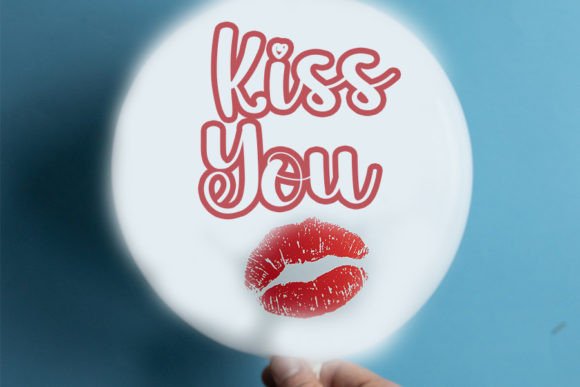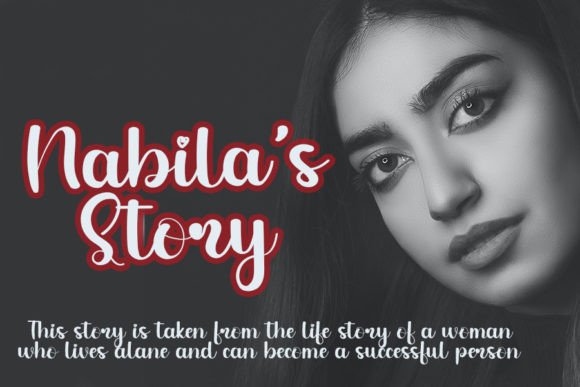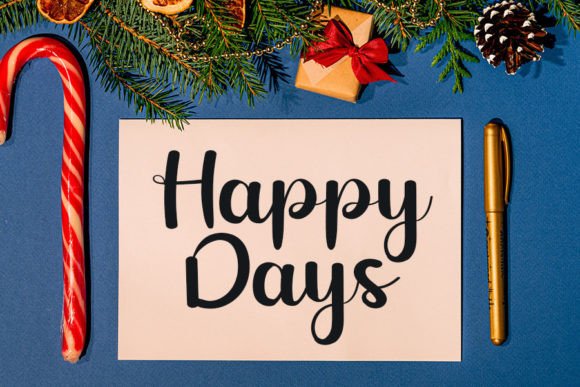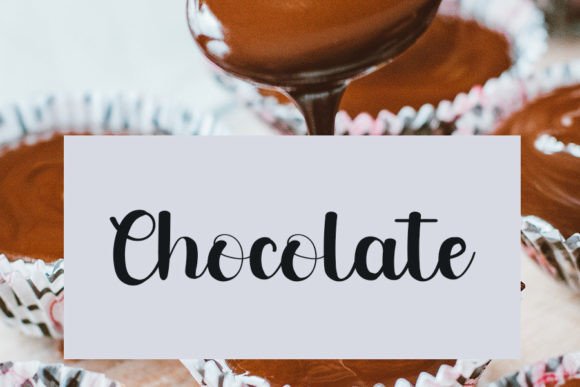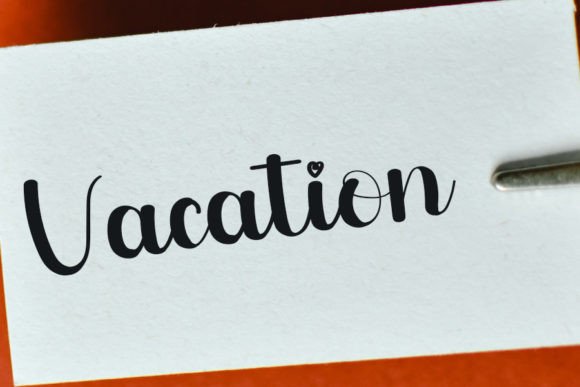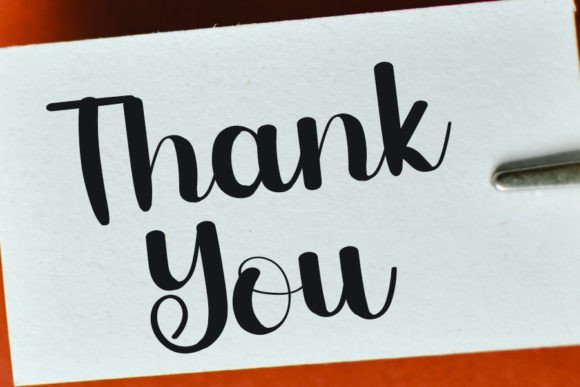
Dairy Font: Elevate Your Designs with a Modern Handwritten Twist
In the world of typography, fonts play a crucial role in conveying the tone and personality of a design. For designers and crafters looking for a unique and modern handwritten font, Dairy Font is an excellent choice. Inspired by classic calligraphy, Dairy Font brings a fresh and spotless form to the table, making it perfect for a wide range of projects.
The Story Behind Dairy Font
Dairy Font is a carefully crafted handwritten font that strikes the perfect balance between modernity and elegance. Its creator aimed to design a font that is not too thin and not too thick, but rather balanced and varied. This attention to detail ensures that Dairy Font stands out from other fonts in its category, offering a distinctive look that can elevate any design.
Key Features of Dairy Font
- Modern Vibe: Dairy Font boasts a contemporary feel that makes it suitable for designs that require a fresh and current look.
- Spotless Form: The font’s clean and unblemished design ensures that it remains legible and aesthetically pleasing, even at smaller sizes.
- Balanced and Varied: With careful attention to stroke width and letterform consistency, Dairy Font achieves a perfect balance that makes it versatile for various applications.
- Inspired by Classic Calligraphy: The font’s roots in traditional calligraphy give it an elegant and sophisticated feel, making it ideal for projects that require a touch of refinement.
Uses of Dairy Font
Dairy Font’s versatility makes it suitable for a wide range of design projects, including:
- Branding and Logo Design: Create memorable and impactful logos with Dairy Font’s unique and modern style.
- Stationery and Invitations: Add a touch of elegance to your stationery, invitations, and greeting cards with this beautiful handwritten font.
- Packaging Design: Make your product packaging stand out with Dairy Font’s clean and contemporary look.
- Digital Media: Use Dairy Font in your digital projects, such as social media graphics, blog posts, and website designs, to add a personal and creative touch.
Why Choose Dairy Font?
With so many fonts available, why should you choose Dairy Font for your projects? Here are a few compelling reasons:
- Unique Style: Dairy Font offers a distinctive and modern handwritten style that sets it apart from more traditional fonts.
- Ease of Use: The font’s balanced and varied design makes it easy to read and work with, even for beginners.
- High Versatility: Whether you’re working on a personal project or a professional assignment, Dairy Font’s flexibility ensures it can adapt to any design requirement.
- Inspirational Potential: With Dairy Font, you can unlock new creative possibilities and bring a fresh perspective to your designs.
Dairy Font is a remarkable handwritten font that brings a modern vibe and spotless form to the world of typography. Its balanced and varied design, inspired by classic calligraphy, makes it an excellent choice for designers and crafters looking to elevate their projects. Whether you’re creating branding materials, stationery, packaging, or digital media, Dairy Font is sure to enhance the beauty of your designs. Explore the possibilities with Dairy Font and discover a new level of creative expression.